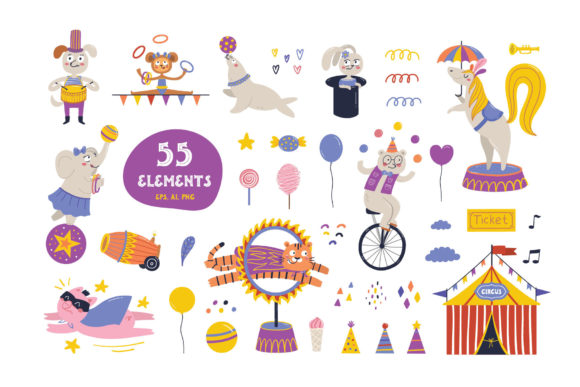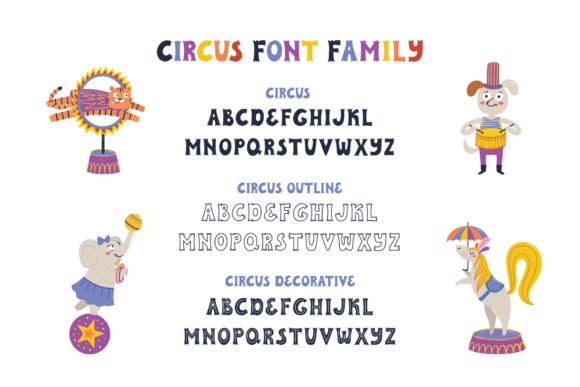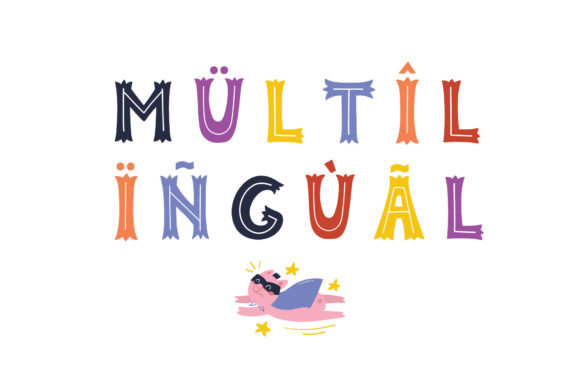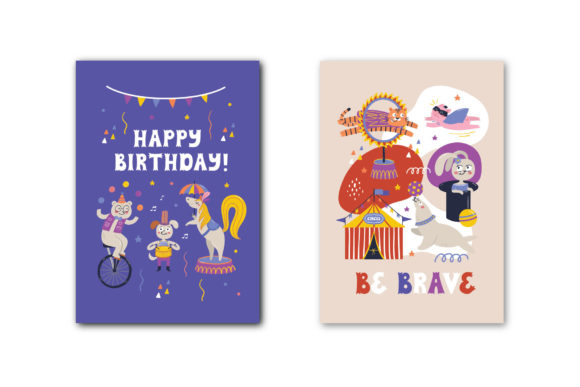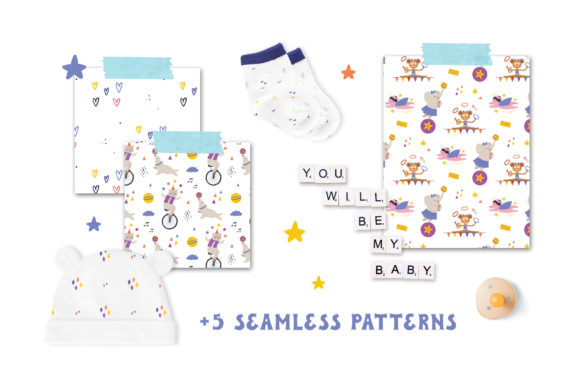
Circus Font: A Whimsical and Colorful Addition to Your Design Collection
Are you a designer or crafter looking for a unique and playful font to add some excitement to your projects? Look no further than the Circus Font! This delightful font family includes three types of font writing, making it a versatile and comprehensive addition to your design toolkit. But that’s not all – with this download, you’ll also receive a range of cute circus animals and colorful elements to help you create a one-of-a-kind design.
What is Circus Font?
Circus Font is a fun and festive font family designed to evoke the magic and wonder of the circus. With three different types of font writing, you can mix and match to create a unique look that suits your design needs. Whether you’re creating a children’s product, a poster, or a social media graphic, Circus Font is the perfect choice.
With these extra elements, you can add an extra layer of fun and personality to your designs. Imagine creating a children’s birthday card with a playful lion and a matching balloon – the possibilities are endless!
Perfect for Festive Designs
Circus Font is specifically designed to help you create festive and eye-catching designs. The font and accompanying illustrations are perfect for:
- Postcards and invitations
- Children’s products, such as toys and books
- Covers and packaging
- Children’s clothing and accessories
Whether you’re designing for a specific occasion or just want to add some whimsy to your everyday projects, Circus Font is the perfect choice.
Why Choose Circus Font?
So why should you choose Circus Font over other fonts and design elements? Here are just a few reasons:
- Uniqueness: Circus Font is a one-of-a-kind font family that will set your designs apart from the crowd.
- Versatility: With three types of font writing and a range of illustrations, you can use Circus Font for a wide range of design projects.
- Fun and playful: Circus Font is designed to bring a smile to your face and add a touch of whimsy to your designs.
Tips for Using Circus Font
To get the most out of Circus Font, here are a few tips:
- Experiment with different font combinations: Try mixing and matching the three font types to create a unique look.
- Use the illustrations to add personality: Don’t be afraid to add a cute circus animal or colorful element to your design to make it more engaging.
- Keep it playful: Circus Font is all about having fun, so don’t be afraid to get creative and try new things!
Circus Font is a fantastic addition to any design collection, offering a unique and playful way to add some excitement to your projects. With its three types of font writing, cute circus animals, and colorful elements, you’ll be able to create designs that are truly one-of-a-kind. So why wait? Download Circus Font today and start creating your own whimsical and festive designs!